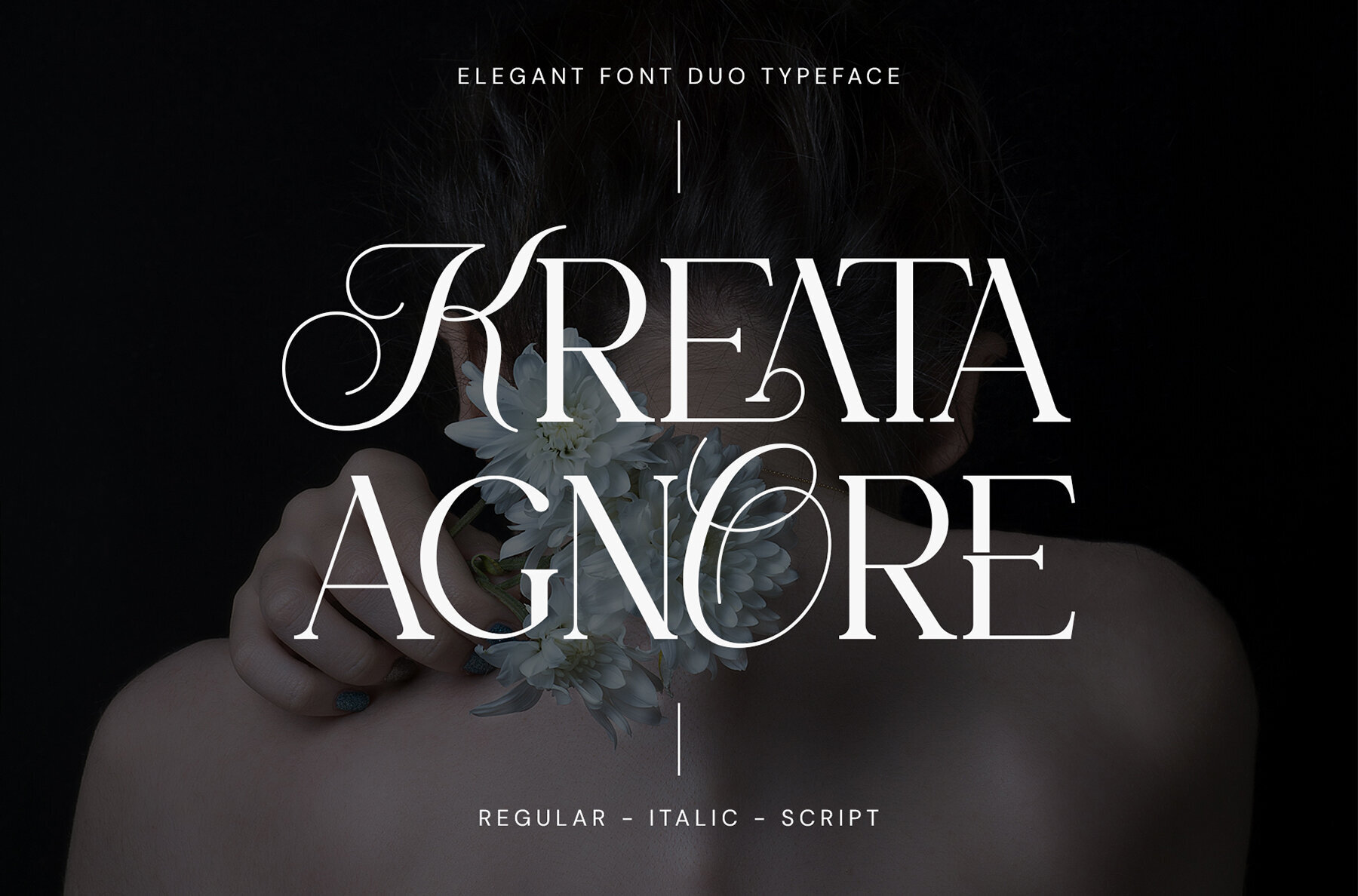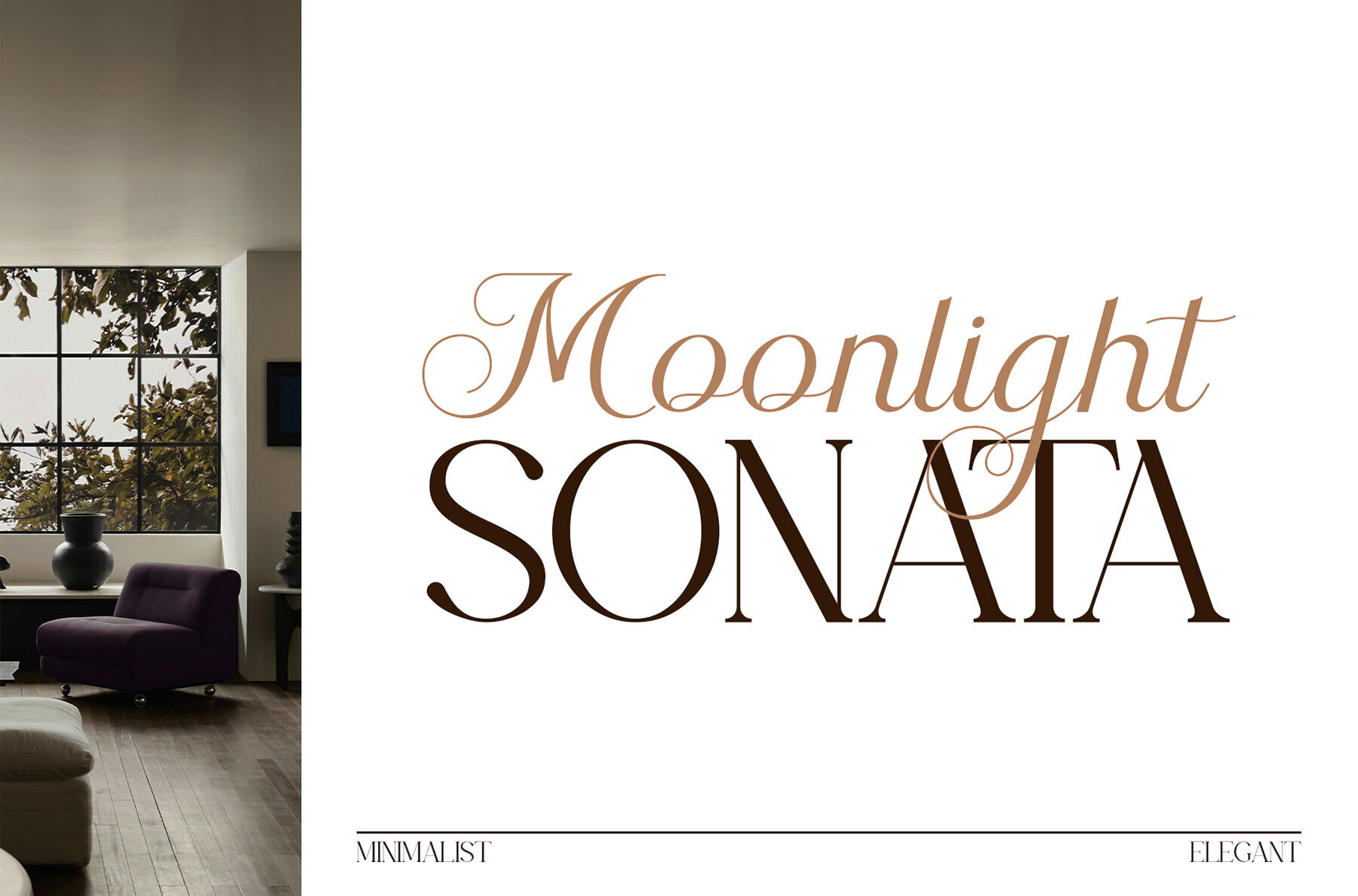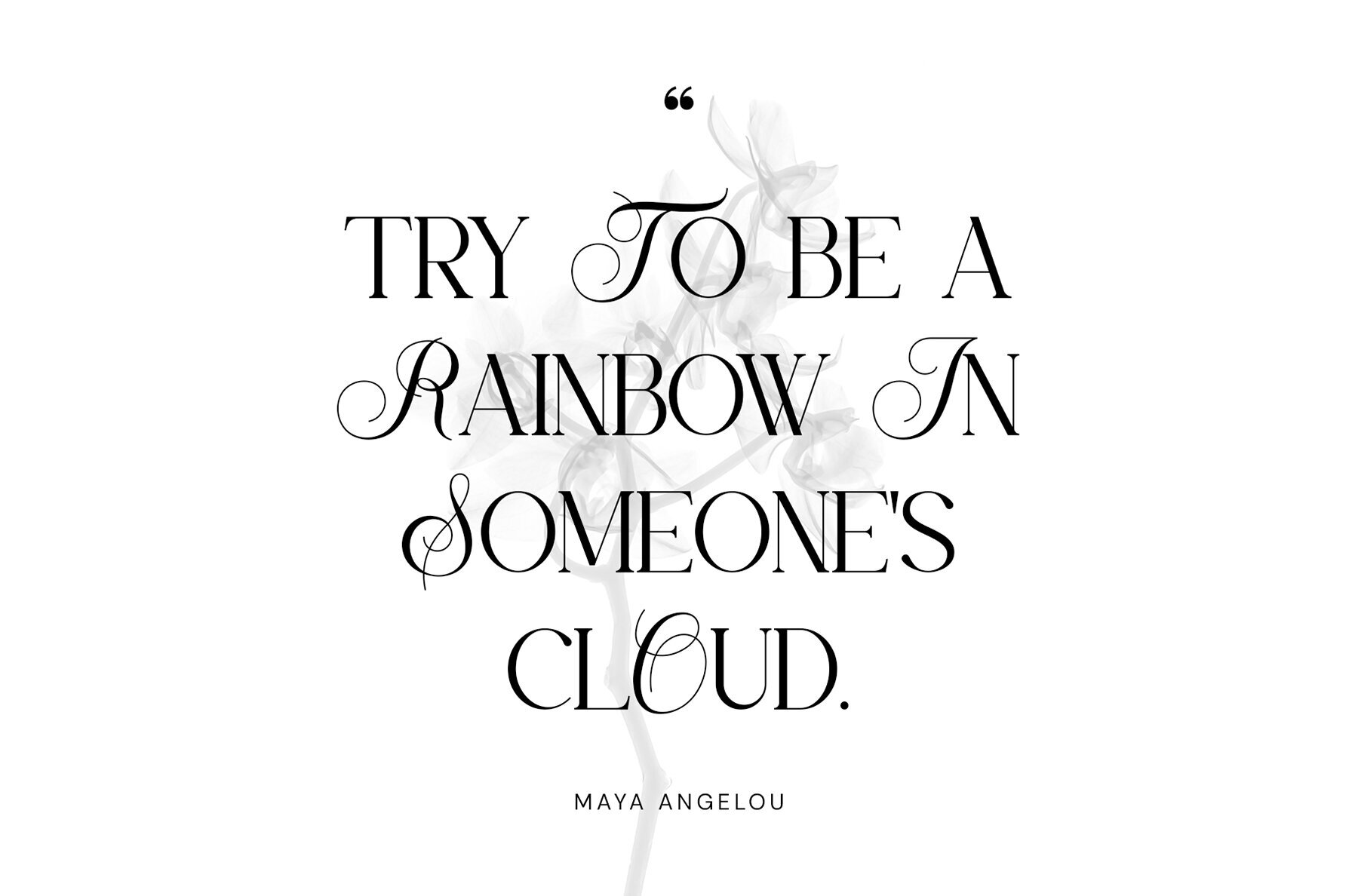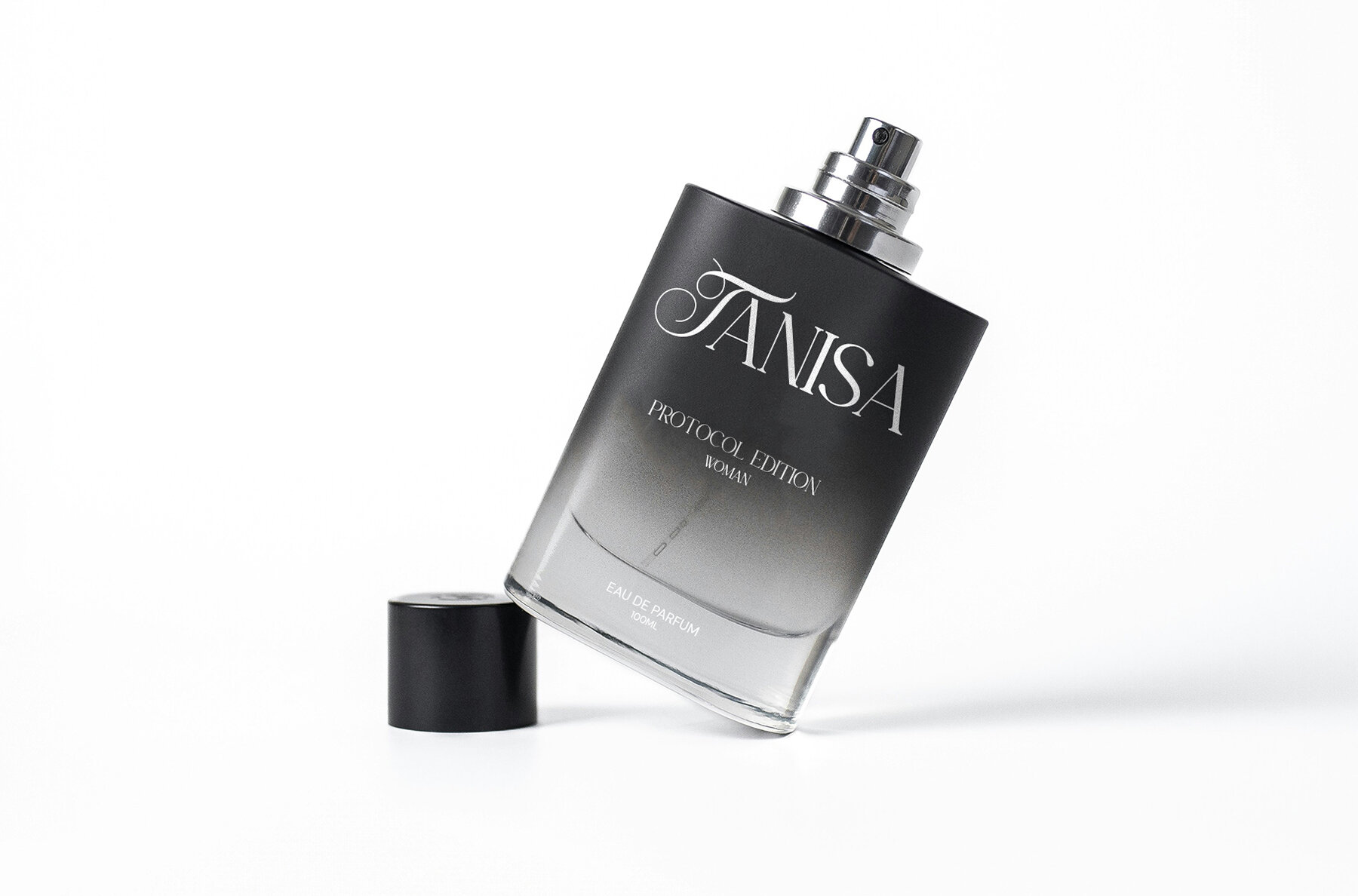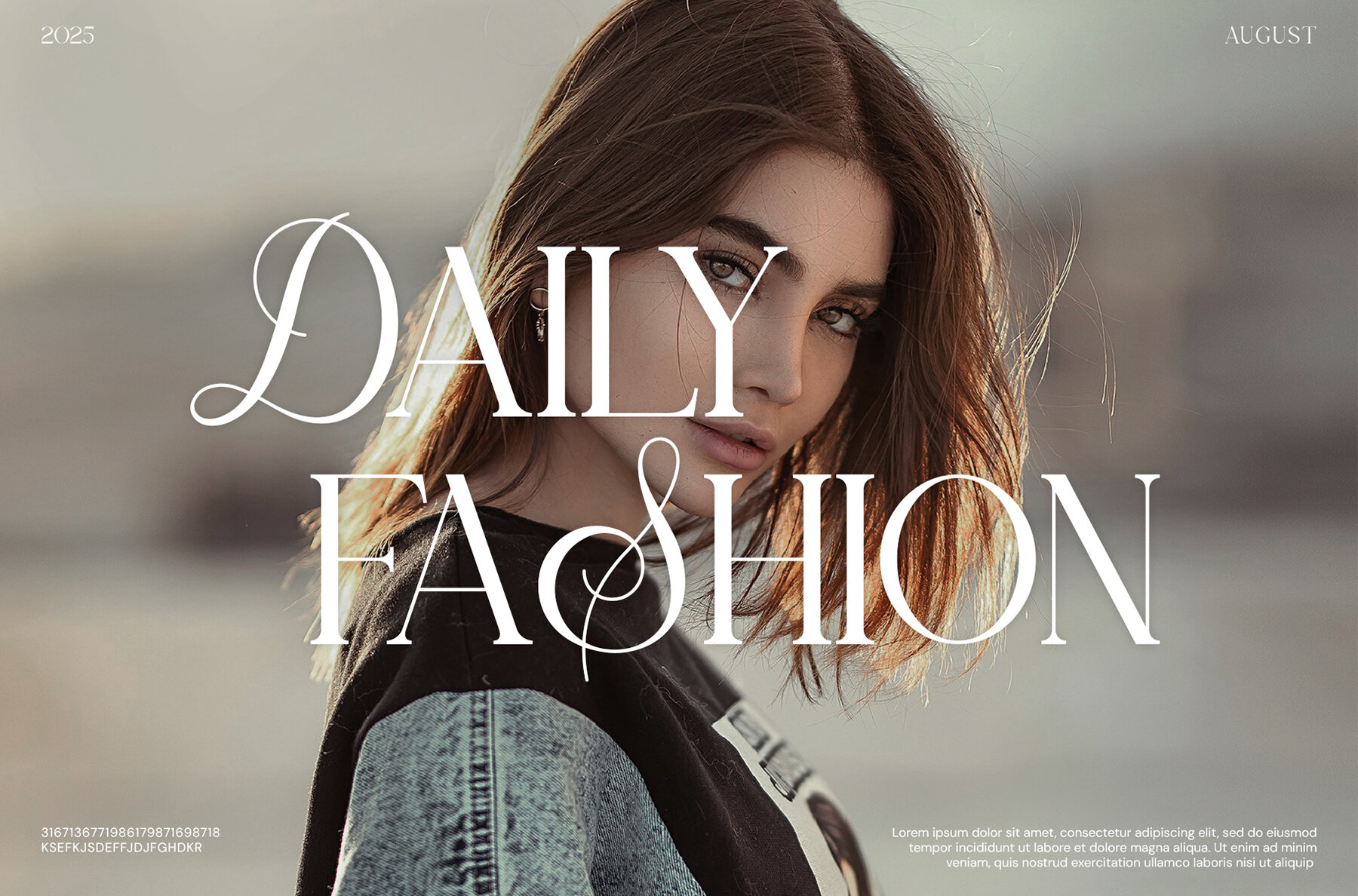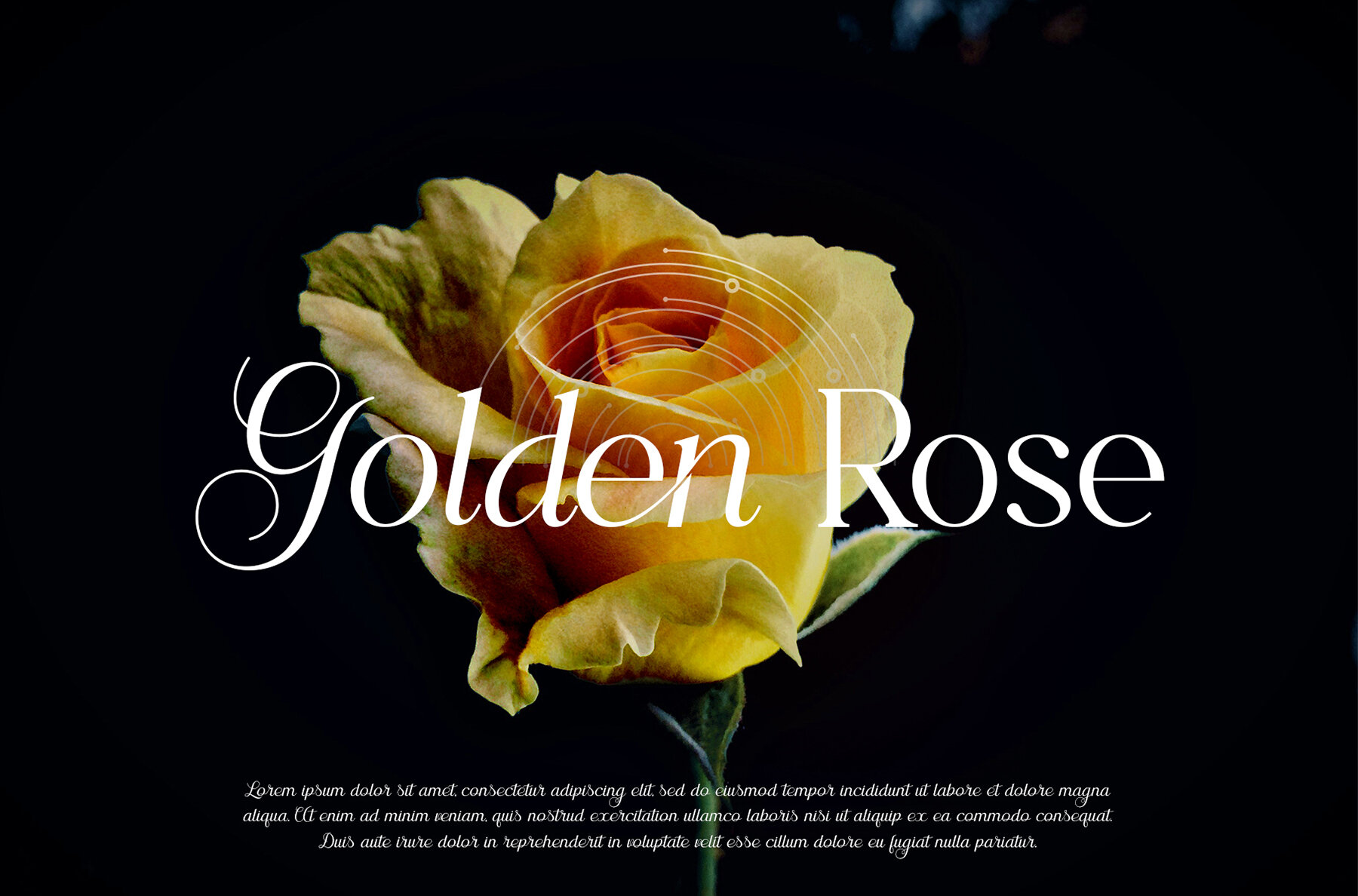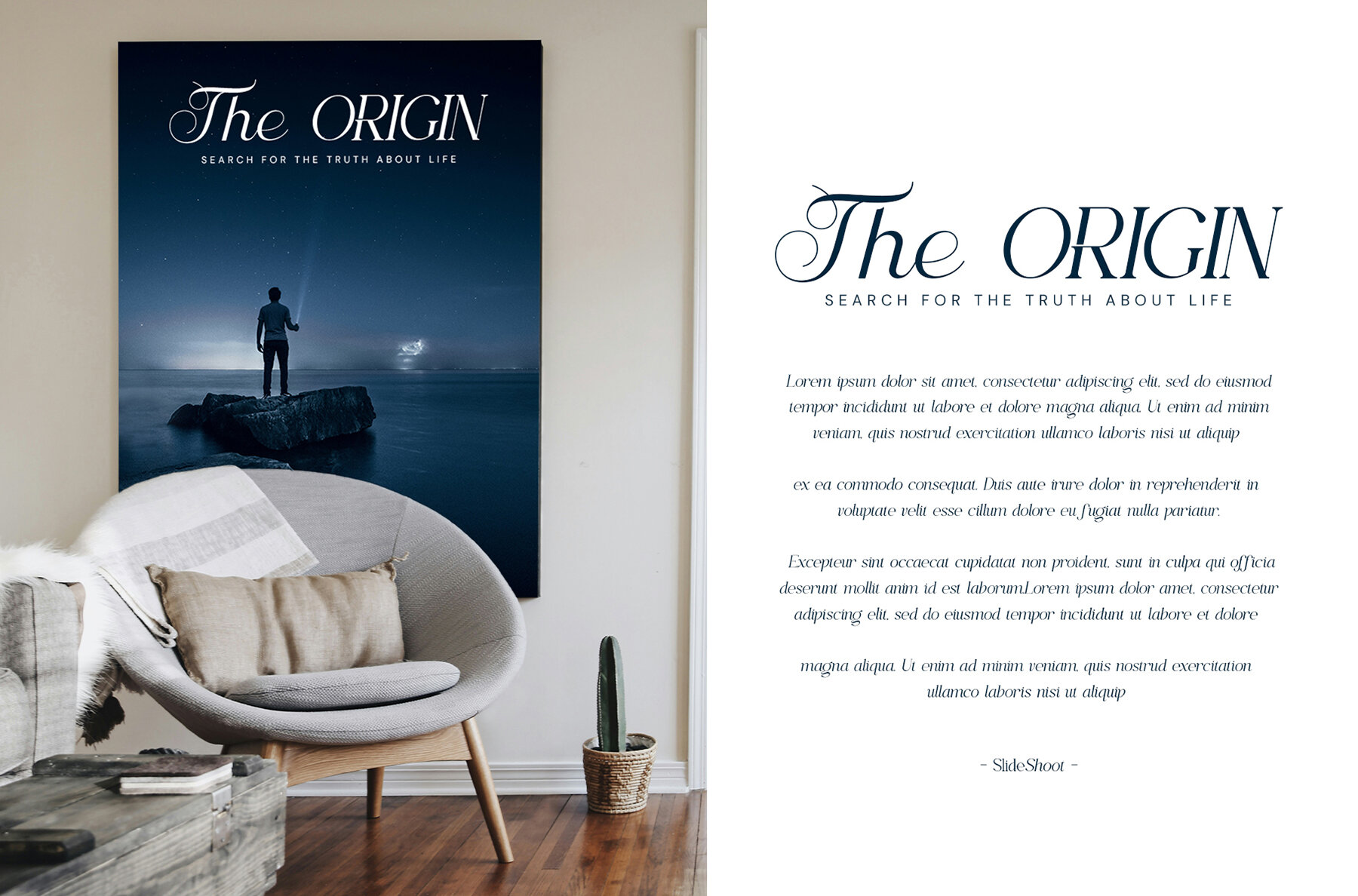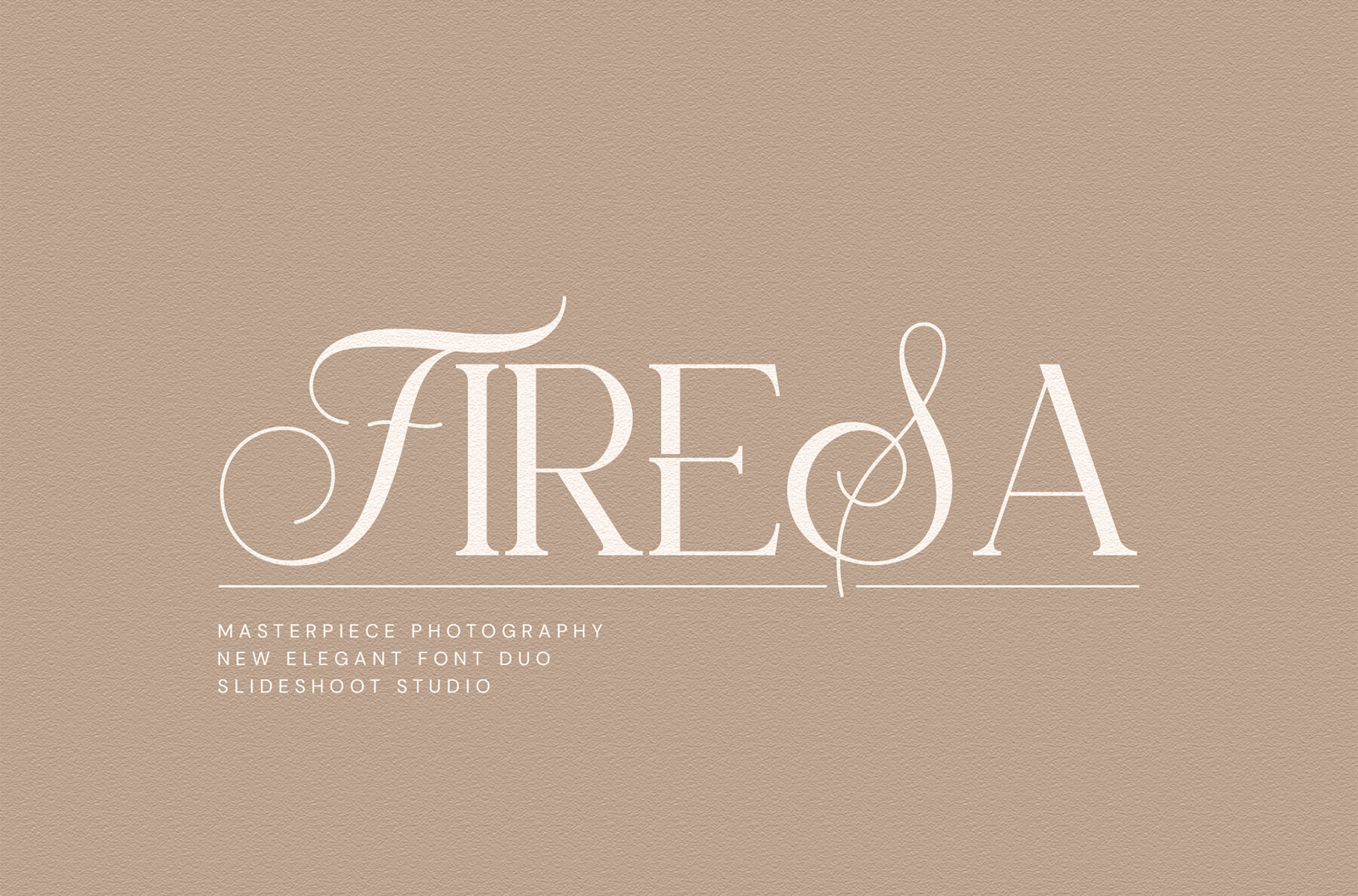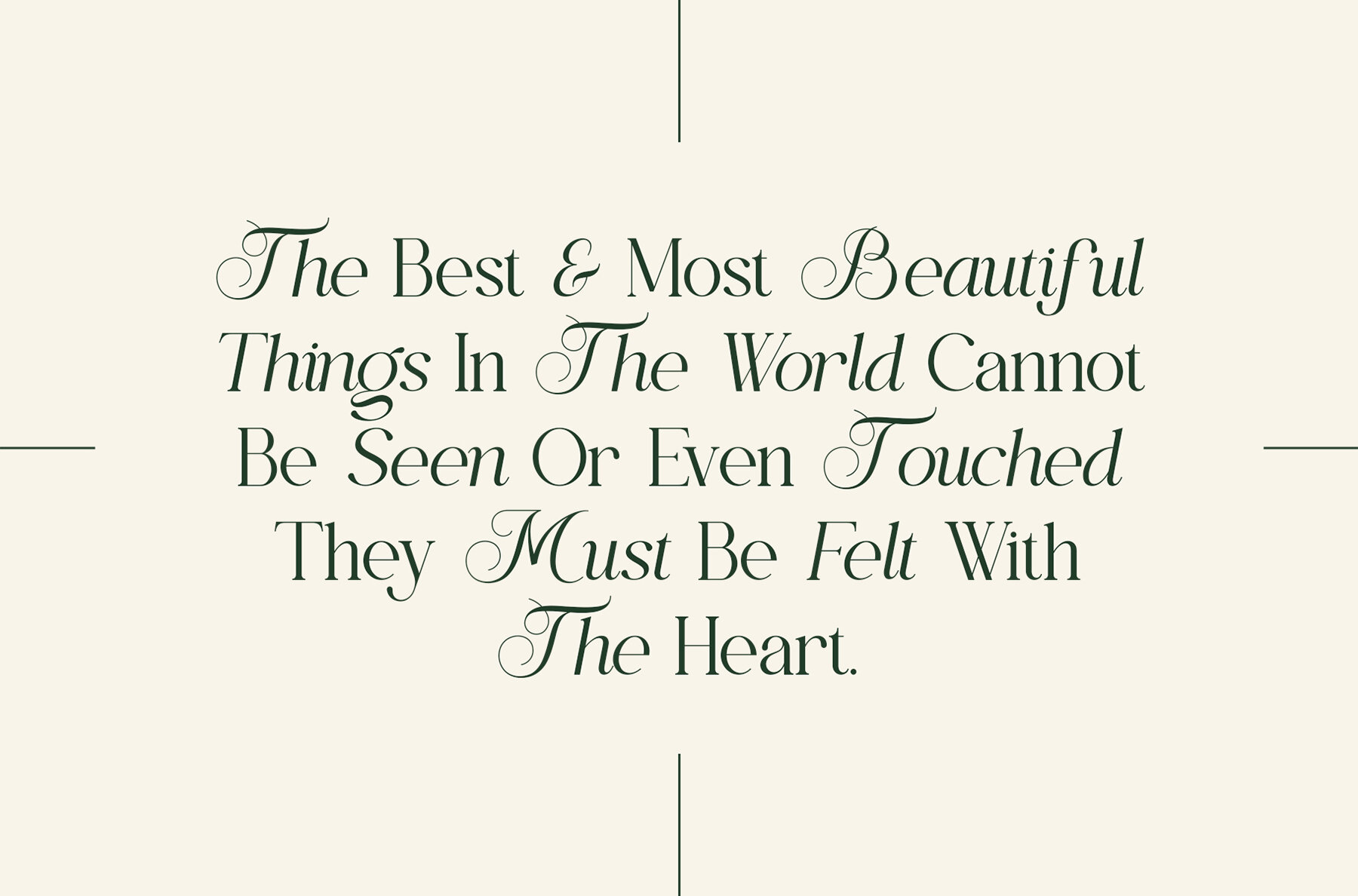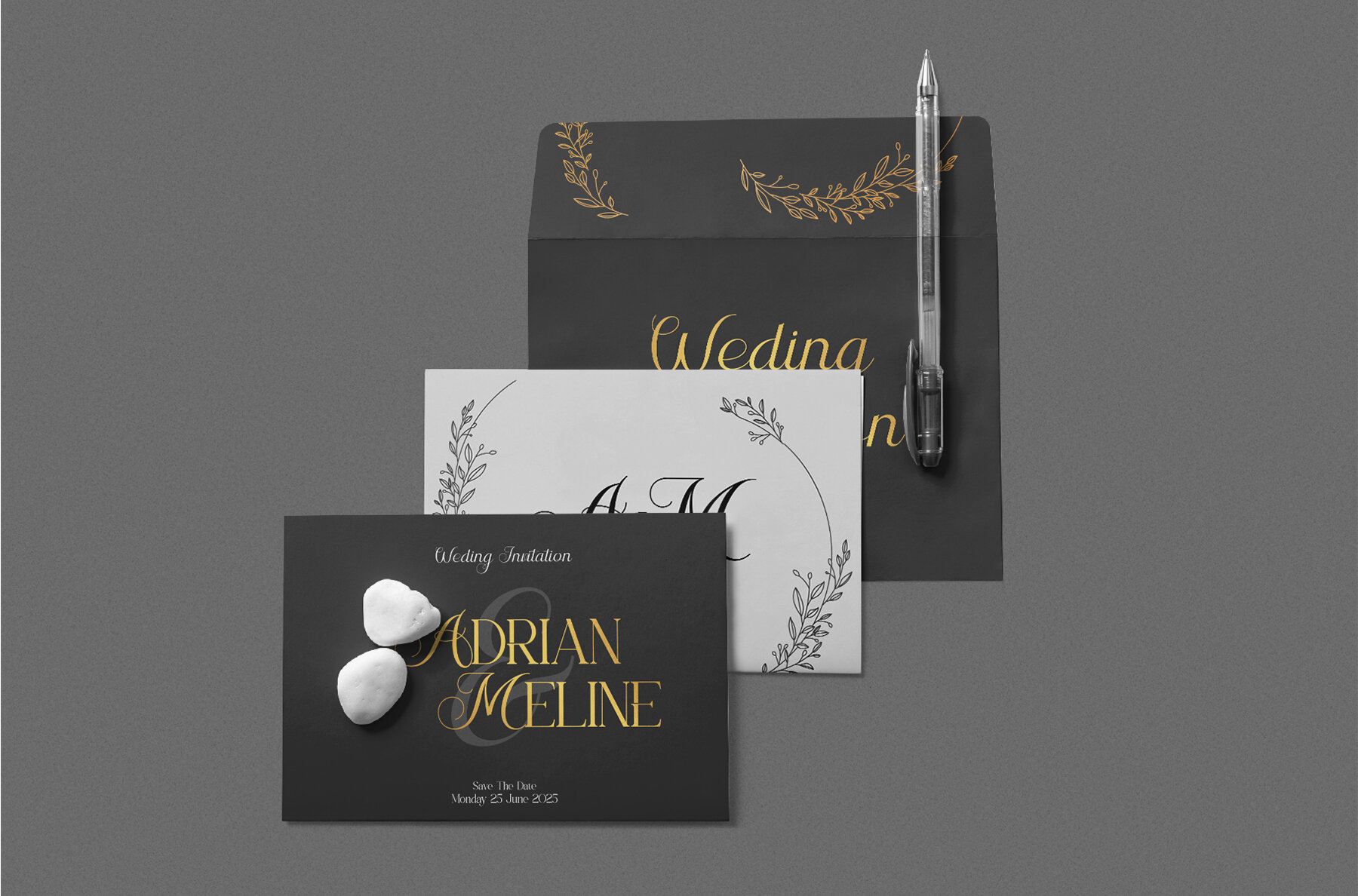
Kreata Agnore Font
Kreata Agnore is an elegant and sophisticated serif and script font duo, ideal for enhancing headings, logos, branding, magazines, product packaging, and invitations. Its refined alternates and ligatures, combined with clean lines and smooth curves, add a touch of class and uniqueness to any creative project.